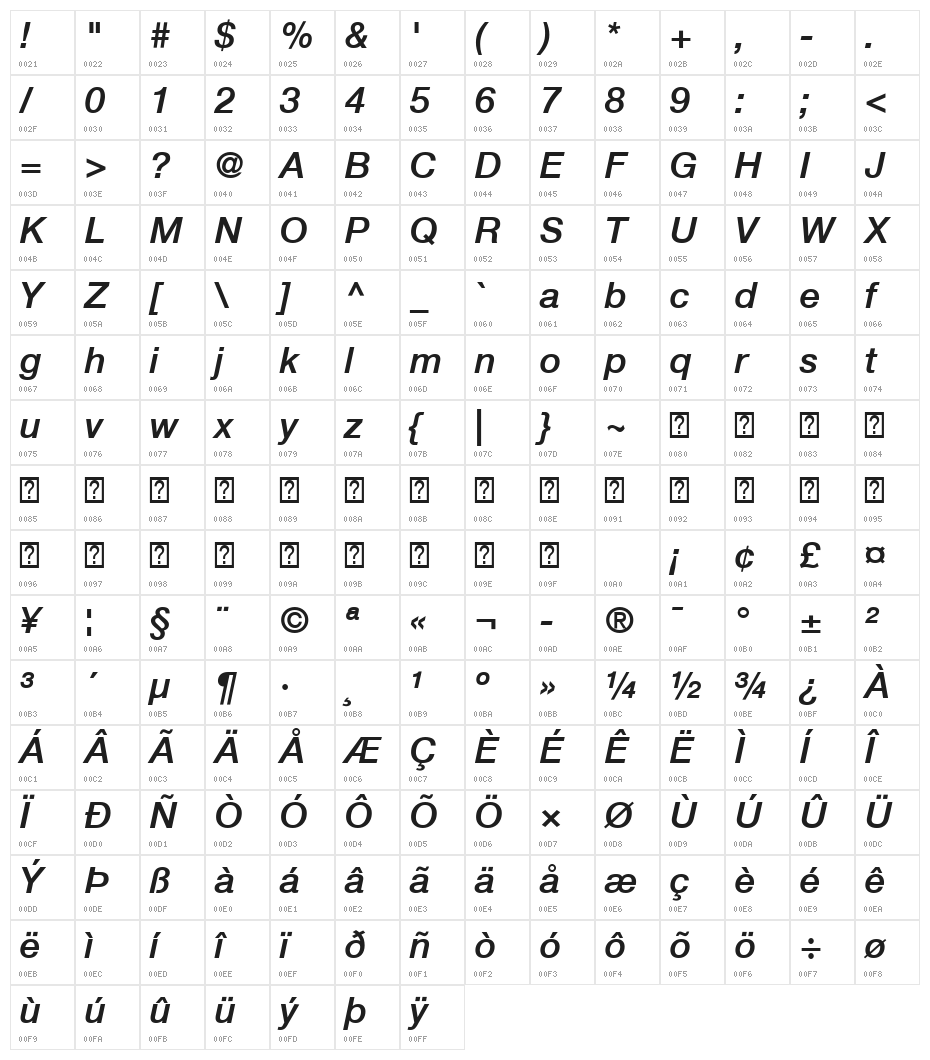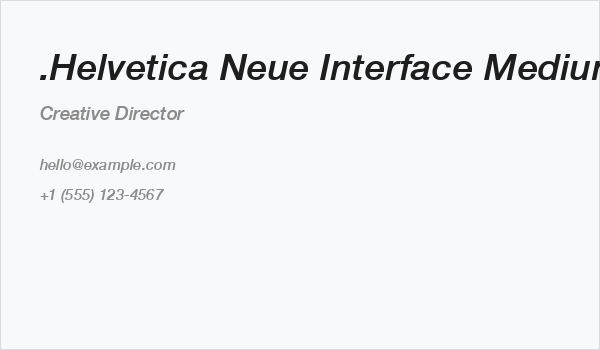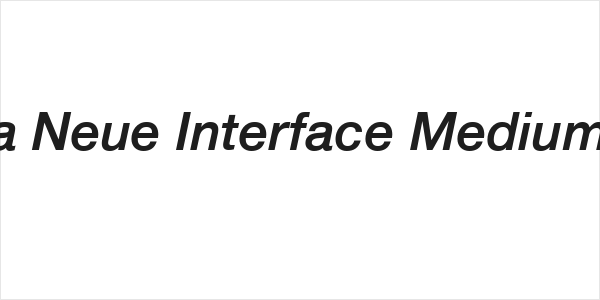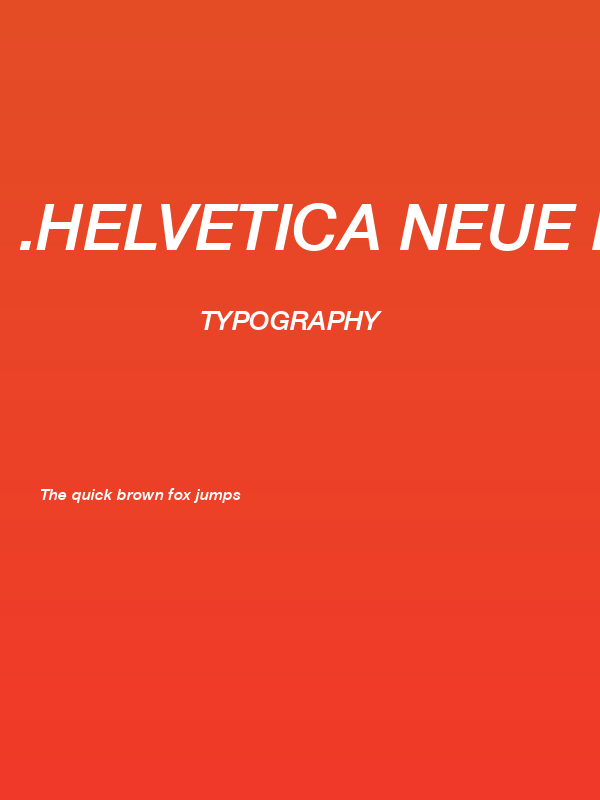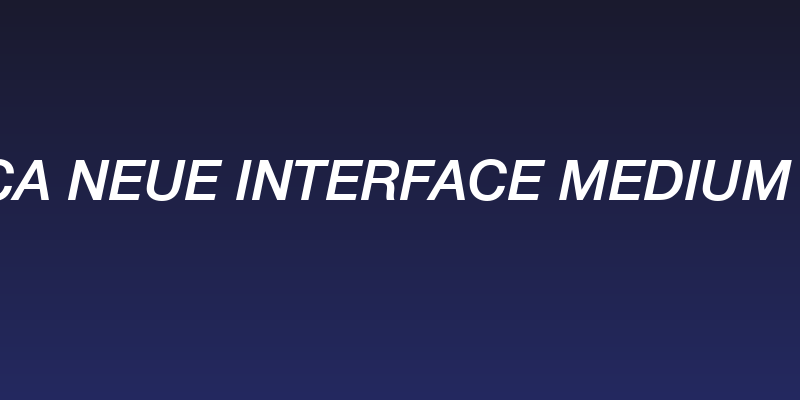
.Helvetica Neue Interface Medium Italic P4 Font
.Helvetica Neue Interface Medium Italic P4 Description
This typeface exhibits a clean and modern aesthetic with a slight slant, giving it an italicized appearance. The characters are well-proportioned, with smooth curves and a uniform stroke width that maintains readability. The design is minimalistic, focusing on clarity and functionality, making it suitable for a wide range of applications. The spacing between characters is balanced, ensuring legibility even at smaller sizes. The overall style is contemporary, with a professional and sleek look that is versatile for both digital and print media.
| Proposed Projects | Ideal for user interfaces, digital content, branding, and editorial design. |